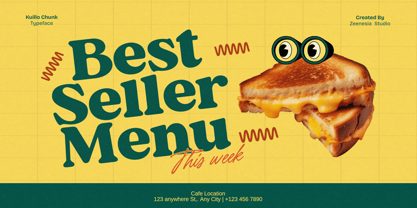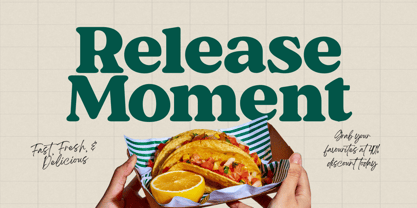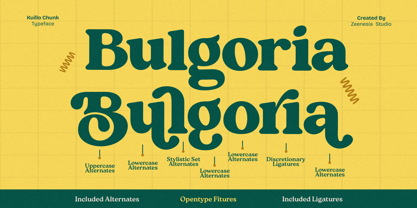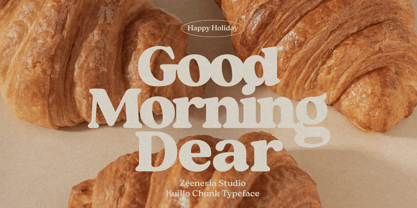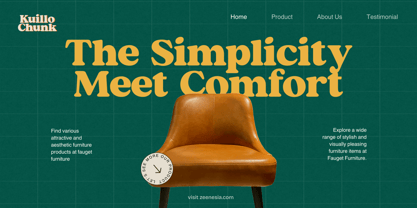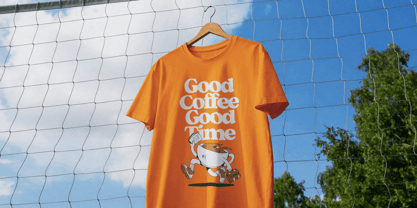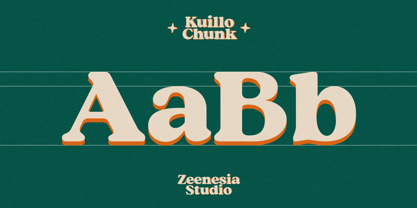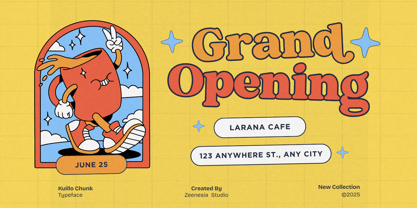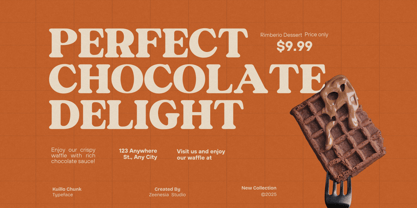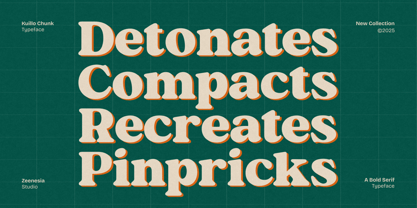
Kuillo Chunk
The Kuillo Chunk Font Family was designed by Doni Purwoko and published by Zeenesia Studio. Kuillo Chunk contains 2 styles and family package options. More about this family
Kuillo Chunk is a bold serif typeface that blends playful charm with confident strength. Its chunky letterforms and smooth curves bring a friendly yet impactful personality, perfect for eye-catching headlines, logos, and creative branding projects. This typeface also includes alternates and ligatures, allowing you to add a unique and expressive touch to every design. Whether you’re creating vintage-inspired packaging, fun posters, or stylish social media graphics, Kuillo Chunk adds warmth and character to your typography.